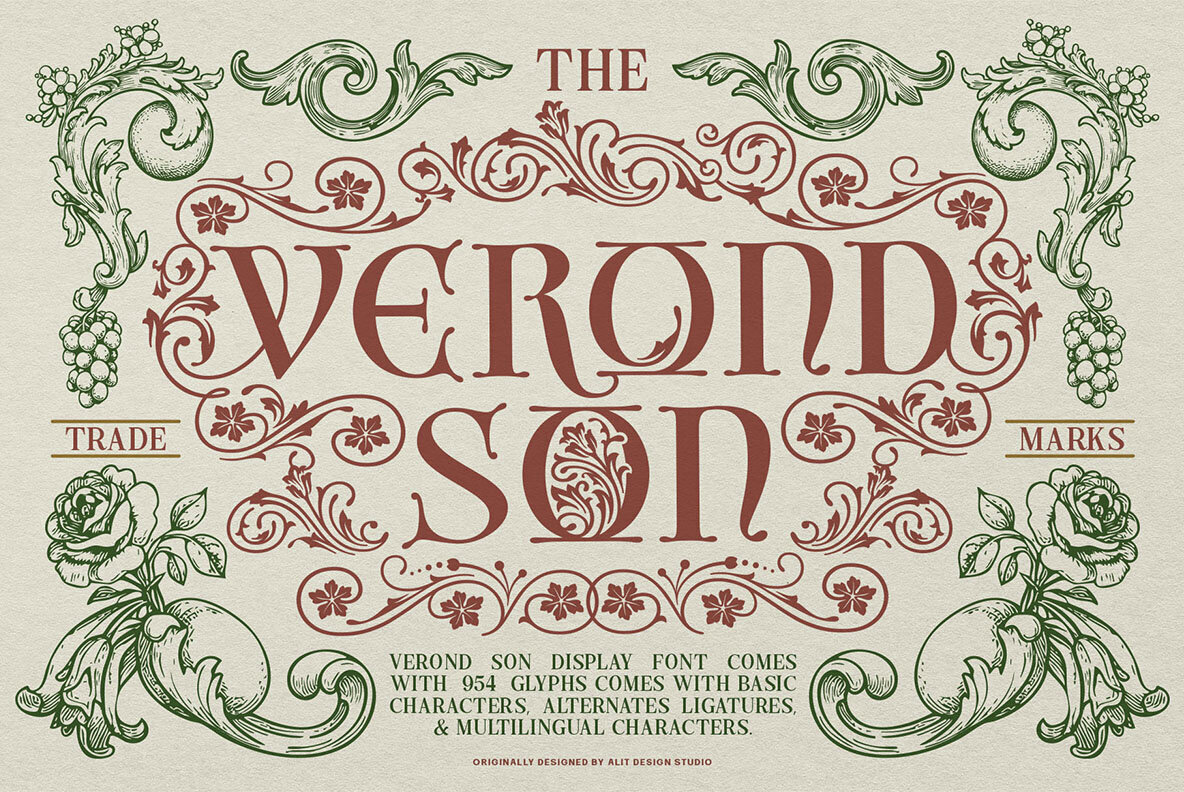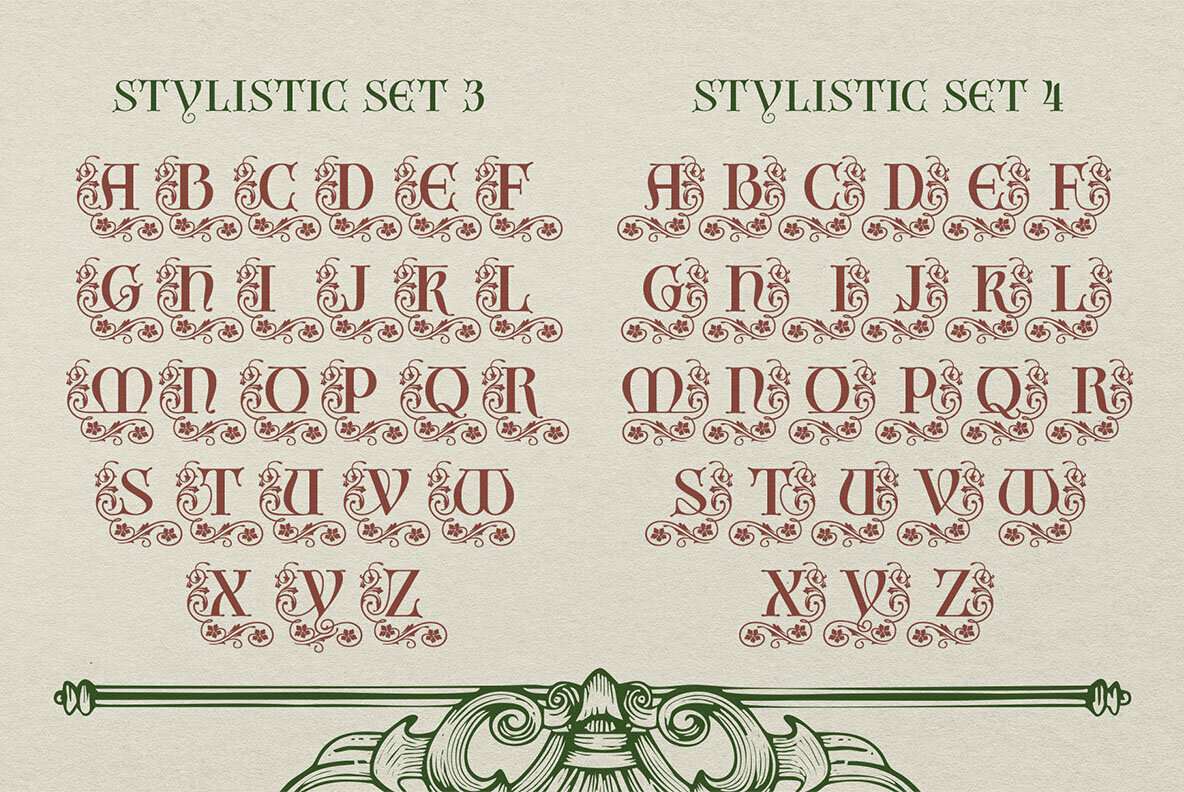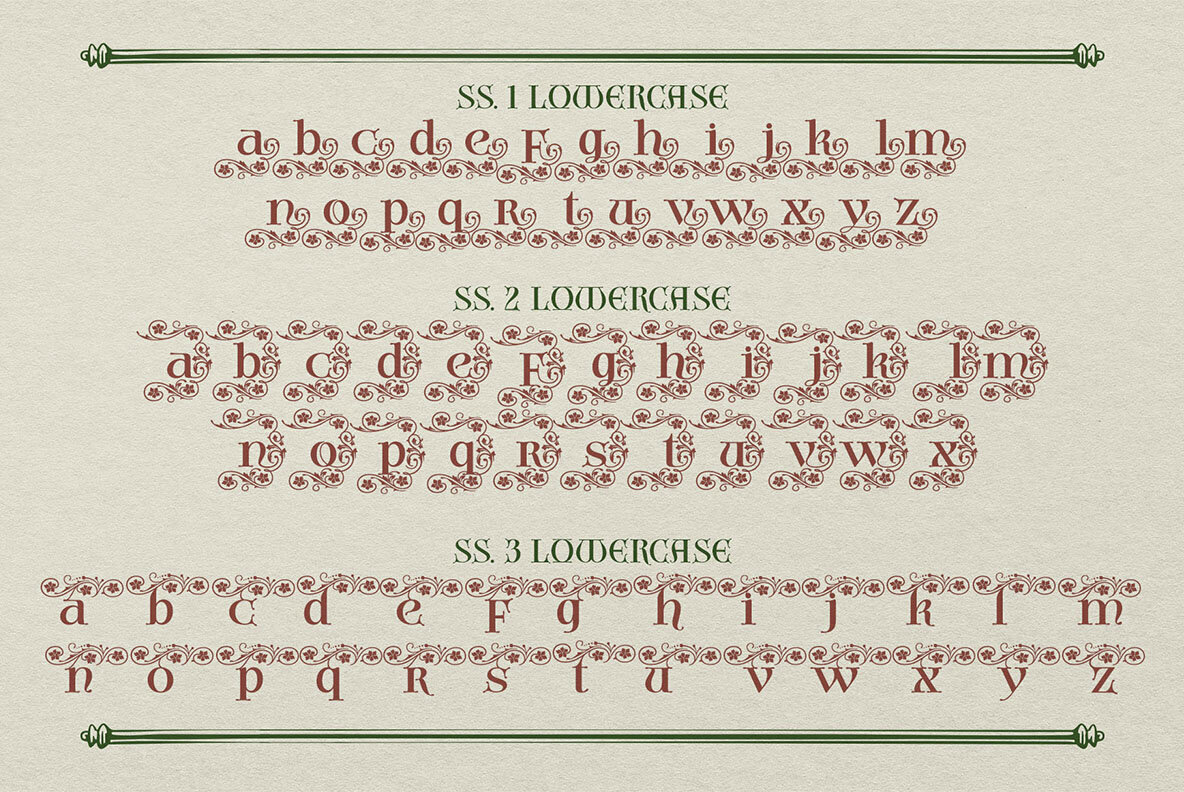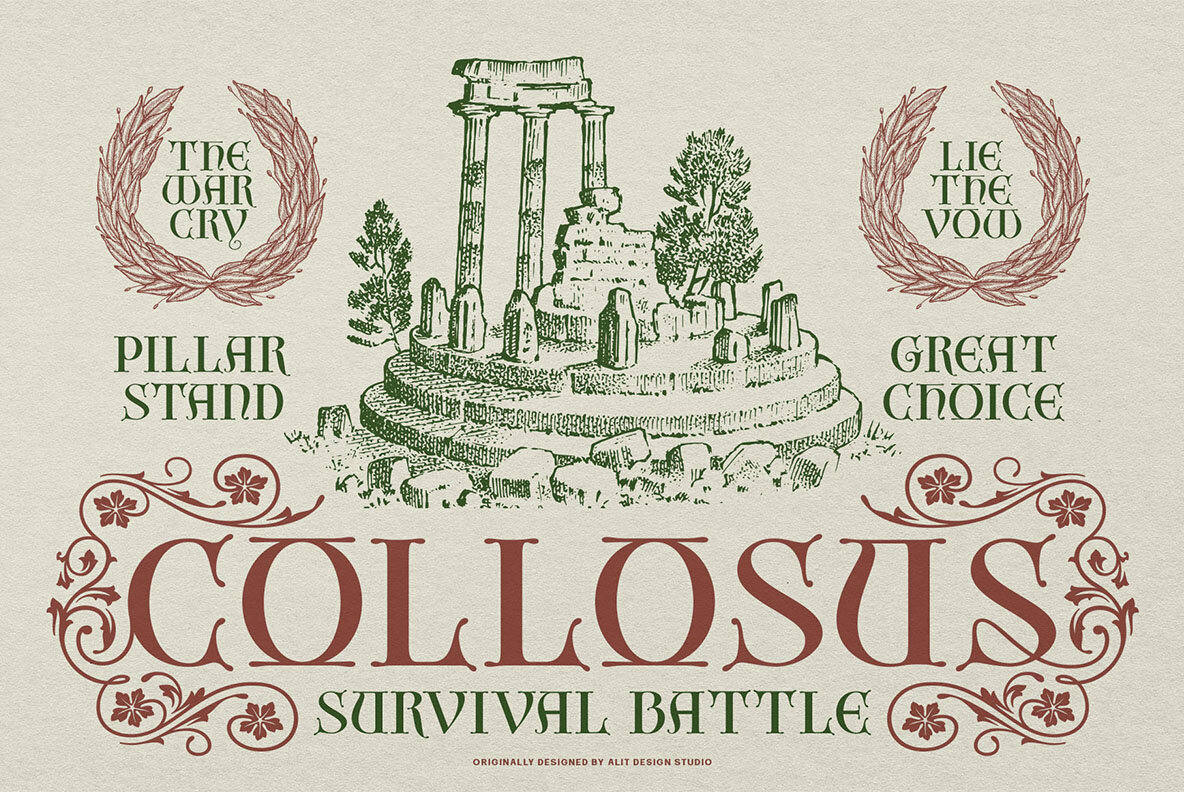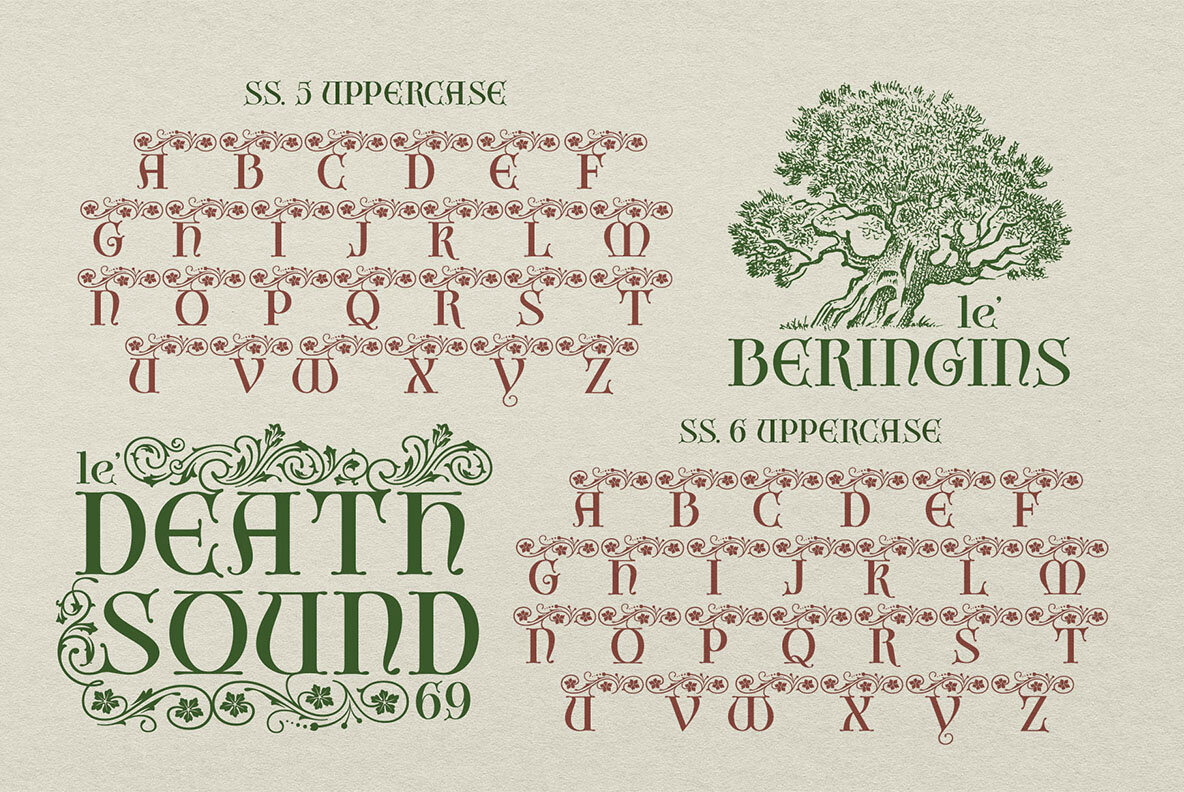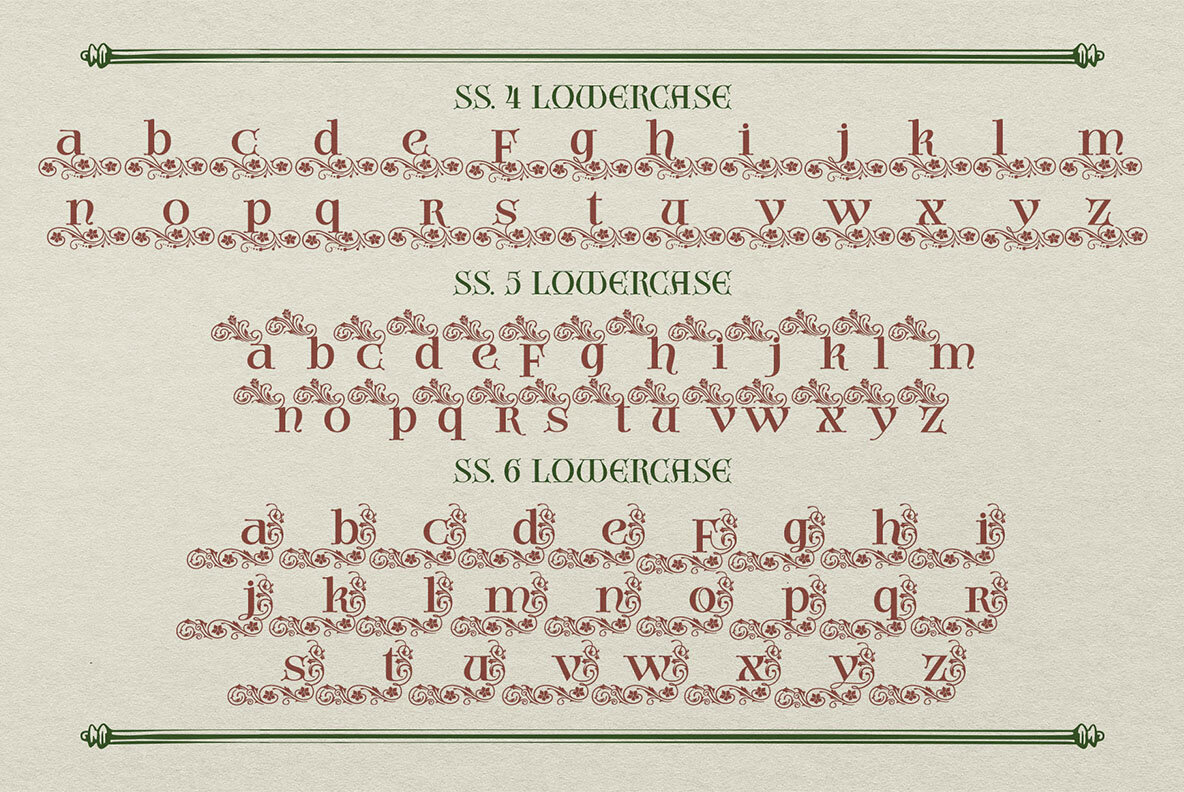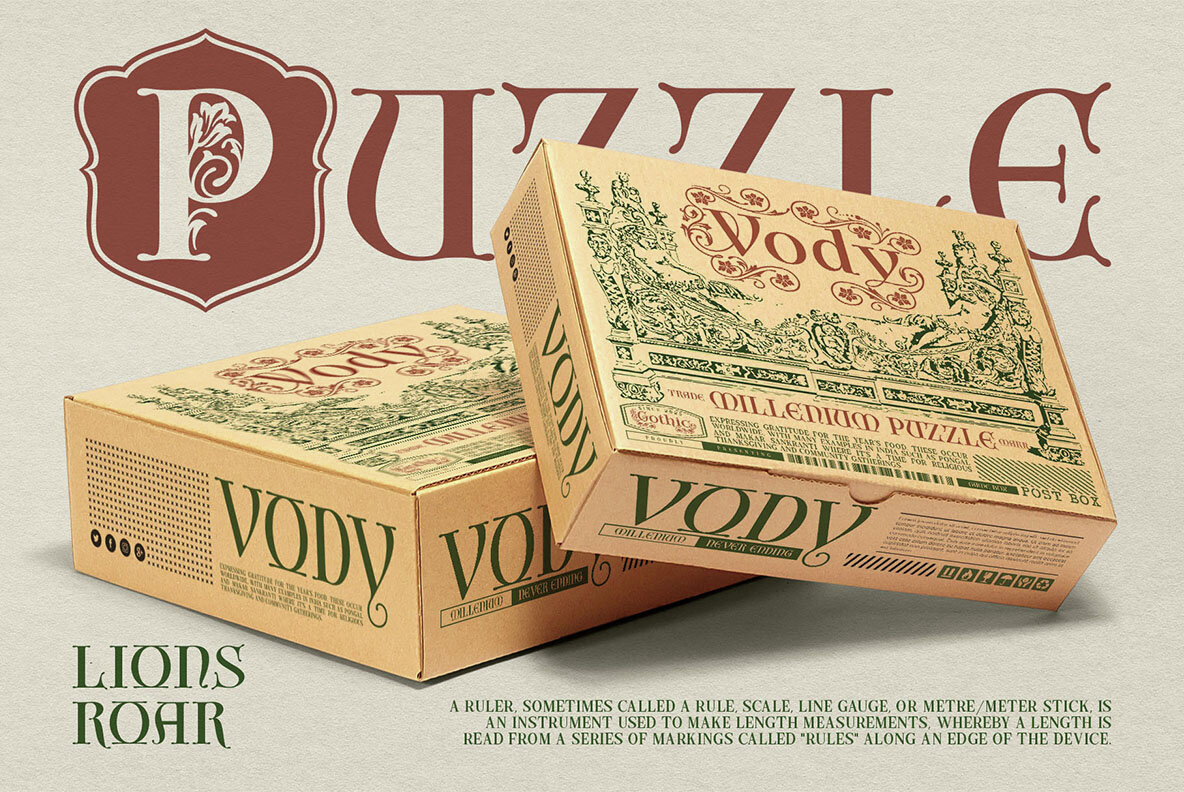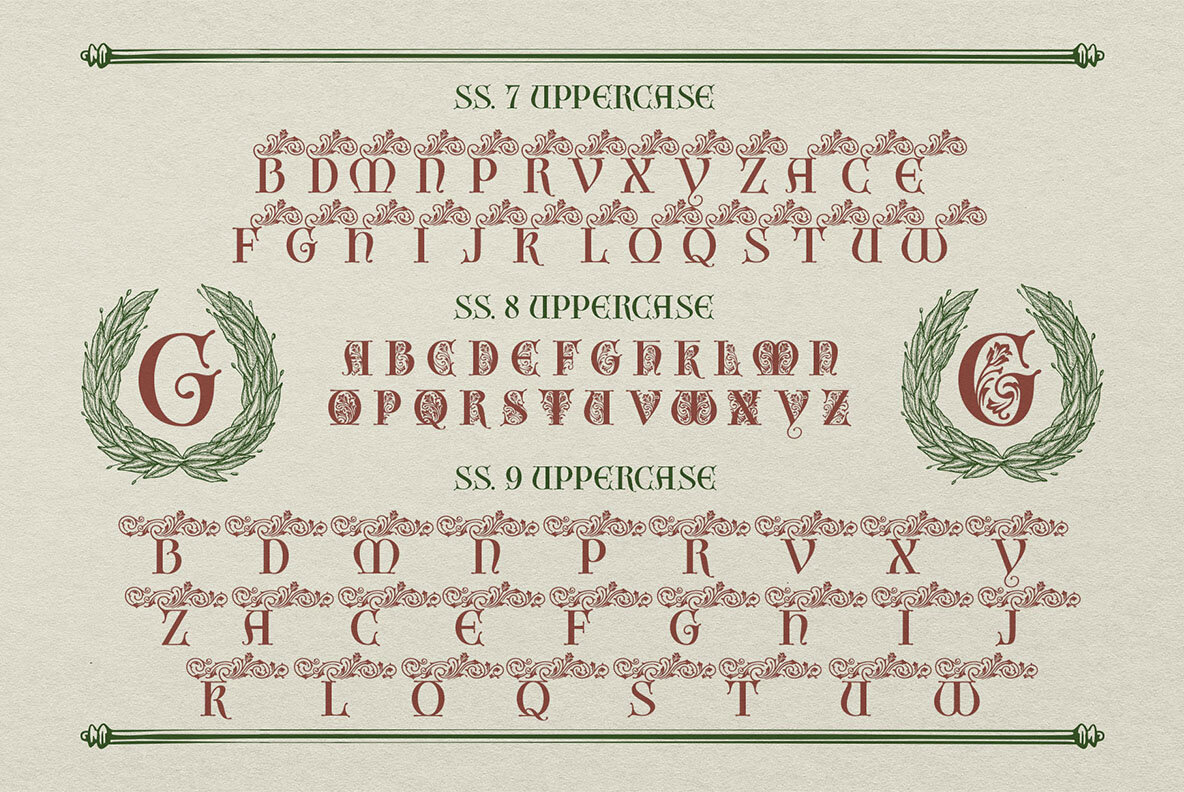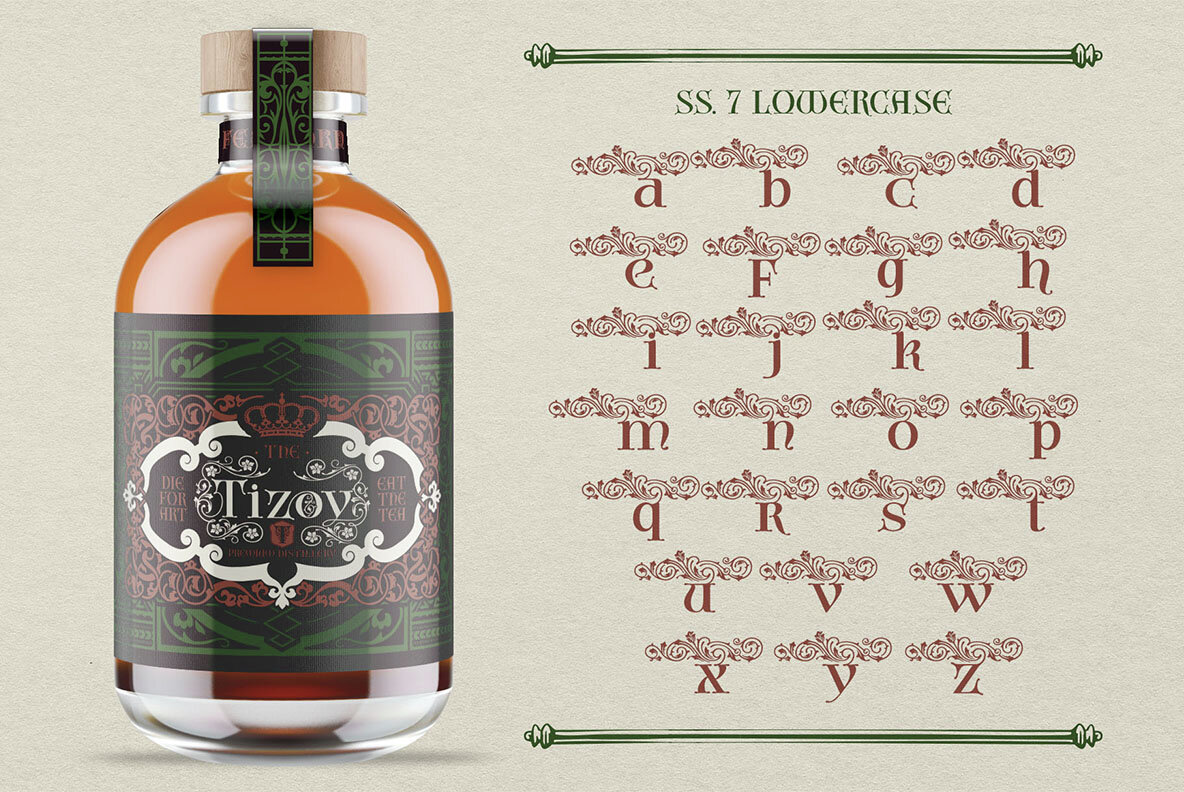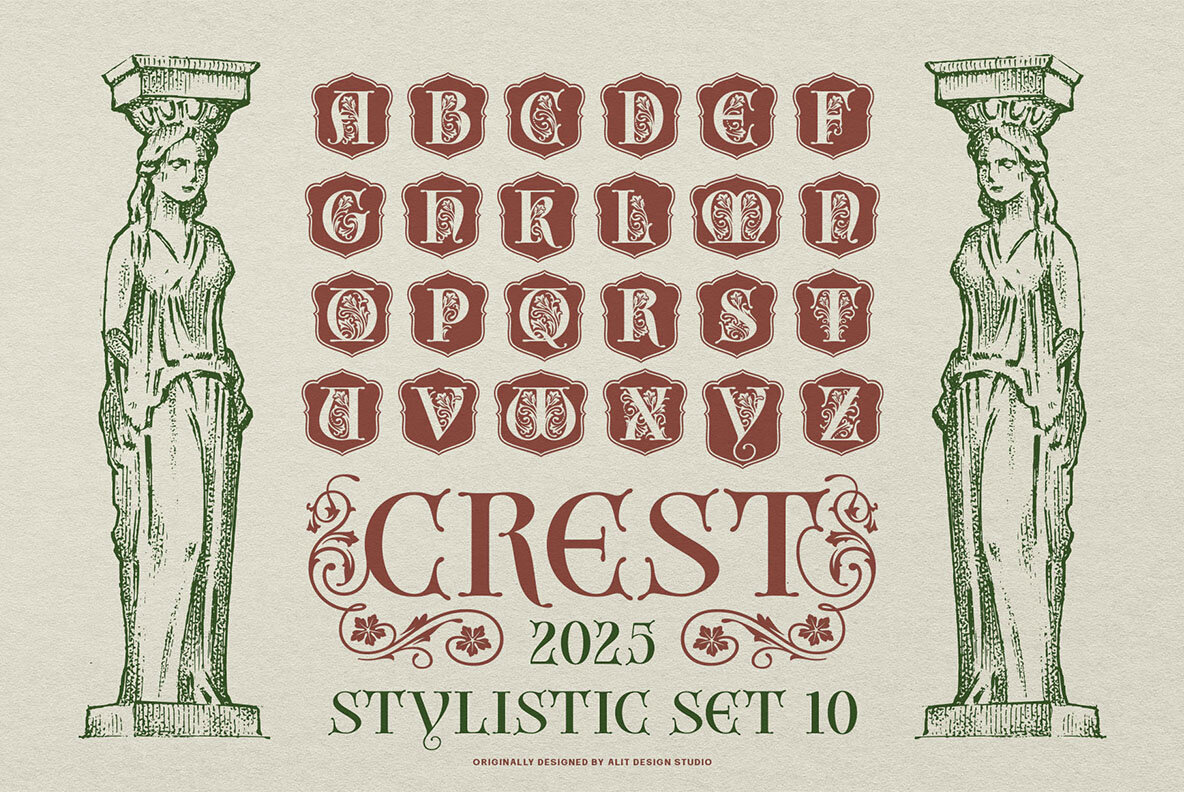
Verond Son Font
Verond Son Regular
Step into a world of timeless elegance with Verond Son, a decorative display font where every letter tells a story of history and artistry. Inspired by the intricate beauty of classical design, this typeface is designed for those who seek to infuse their work with a touch of grandeur and sophisticated charm. Each character in the Verond Son family is a masterpiece of detail, featuring enchanting ornaments and graceful flourishes that capture the essence of vintage typography. This font is not merely for writing; it is for creating an unforgettable visual experience. With its elaborate ligatures and extensive stylistic alternates, it gives you the creative freedom to design truly unique and captivating compositions. Perfect for a wide range of applications, Verond Son excels in: With an extensive set of over 954 glyphs, including full uppercase and lowercase alternates, multilingual support, and a treasure trove of decorative elements, Verond Son provides all the tools you need to bring your most ambitious artistic visions to life.Verond Son: A Symphony of Classical Ornament